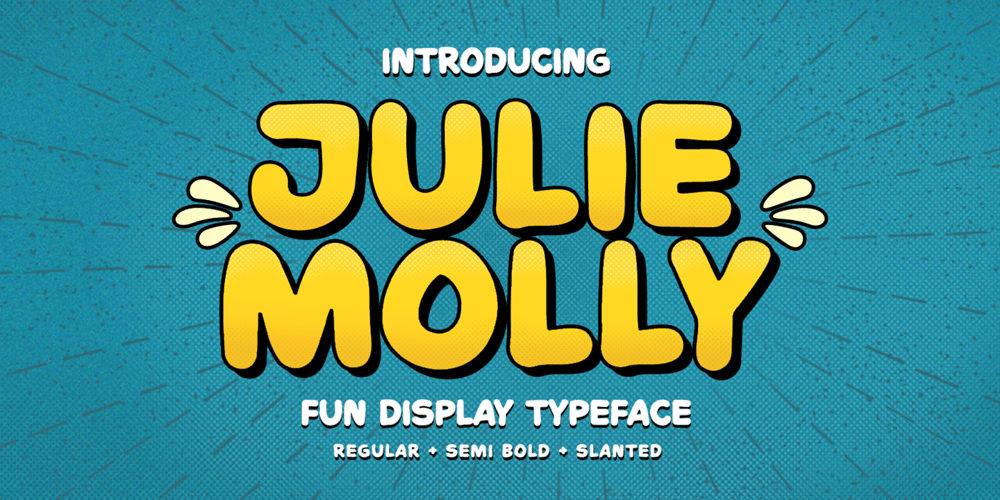
Julie Molly Font Family was designed by Hendry Juanda and published by Letterhend. Julie Molly contains 4 styles and family package options. Julie Molly is a typeface with fun and playful looks. Available in 4 styles – regular, slanted, semi bold & semi bold slanted. This type of font perfectly made to be applied especially in storybook children or child theme which is need a standout font, and the other various formal forms such as invitations, labels, logos, magazines, books, greeting / wedding cards, packaging, fashion, make up, stationery, novels, labels or any type of advertising purpose.Features : numbers and punctuation multilingual ligatures PUA encoded We highly recommend using a program that supports OpenType features and Glyphs panels like many of Adobe apps and Corel Draw, so you can see and access all Glyph variations.